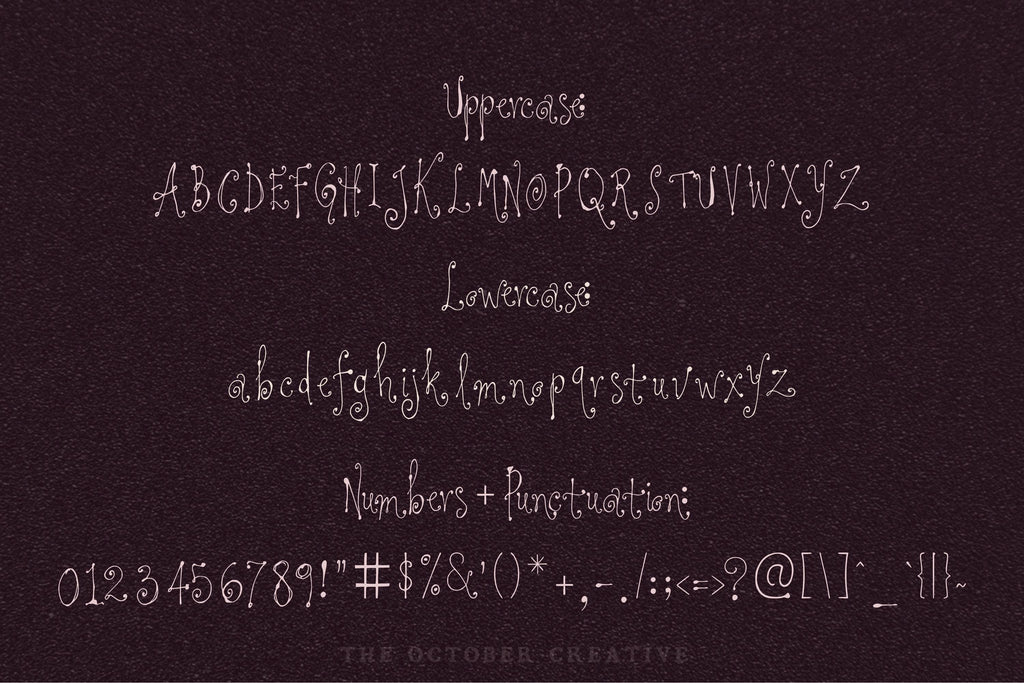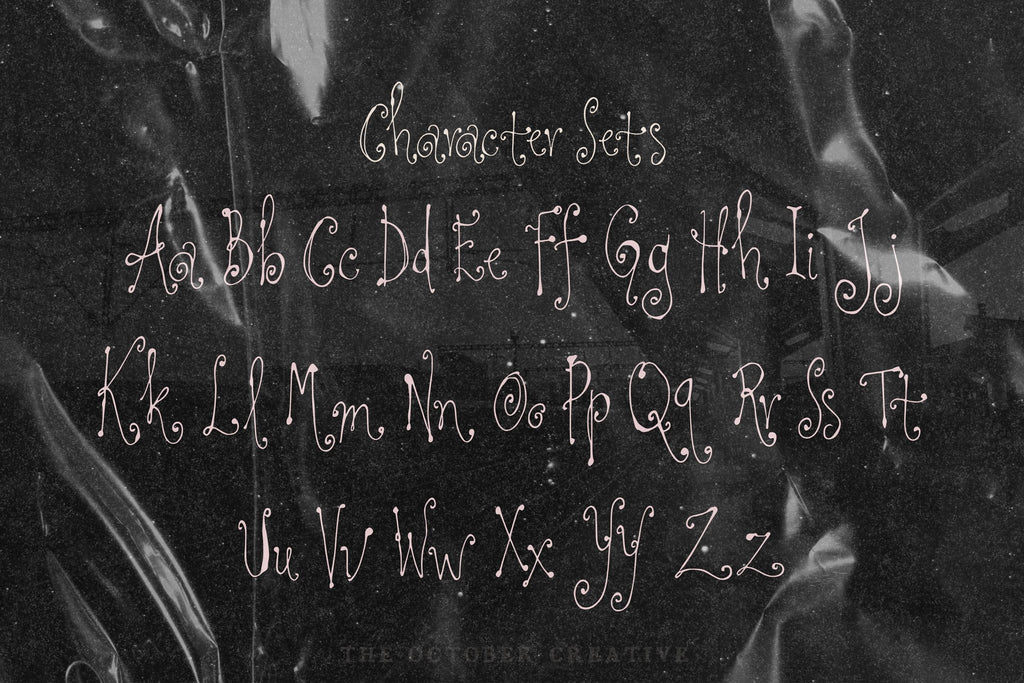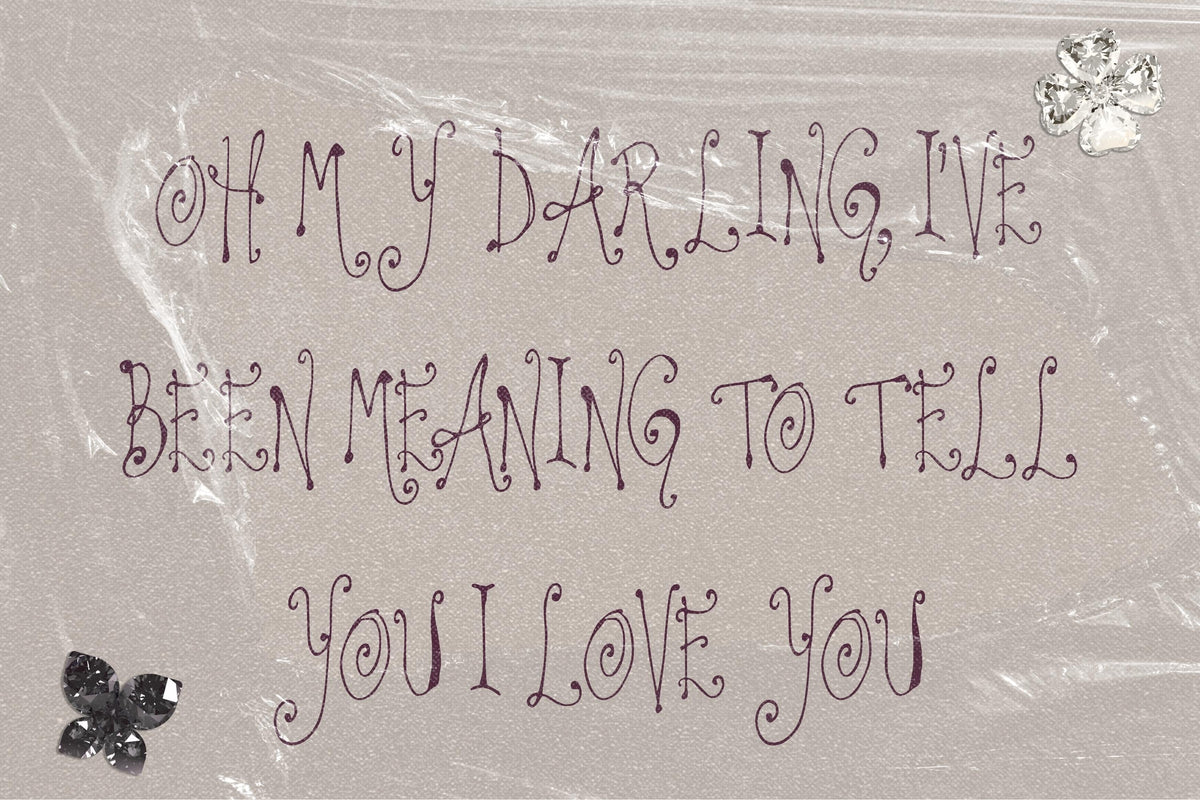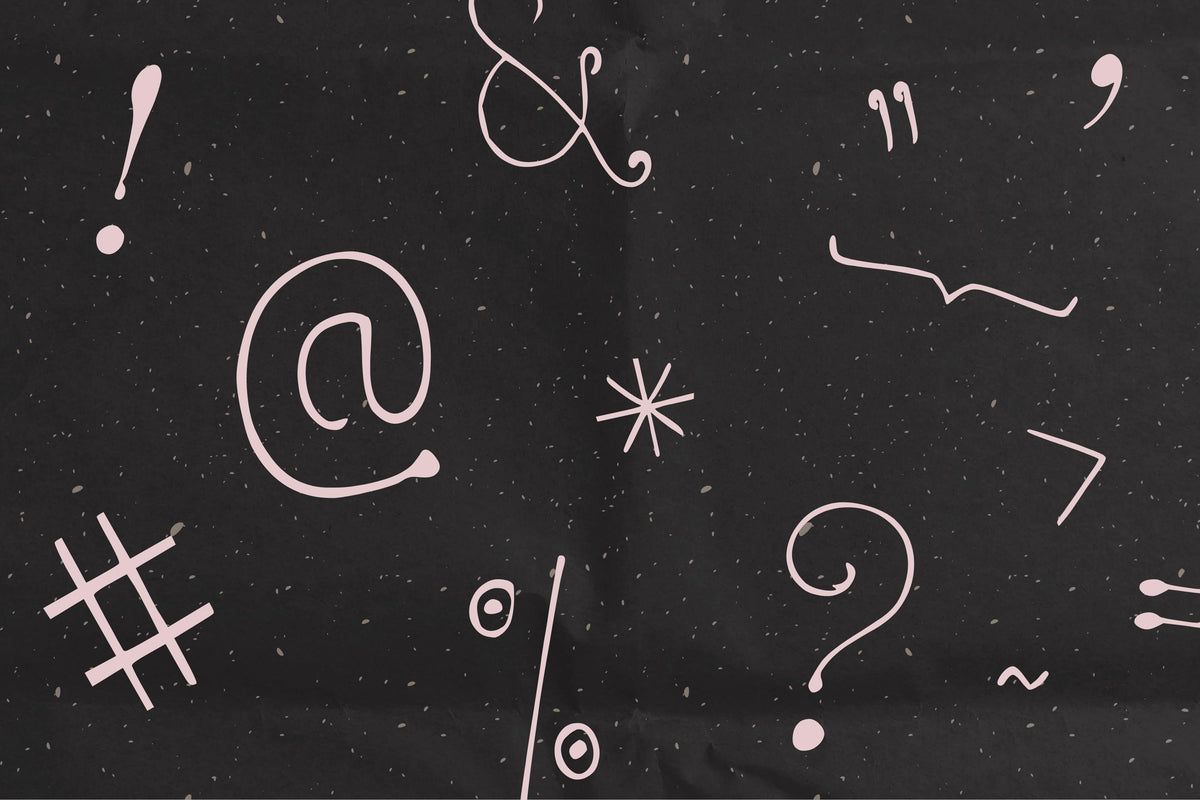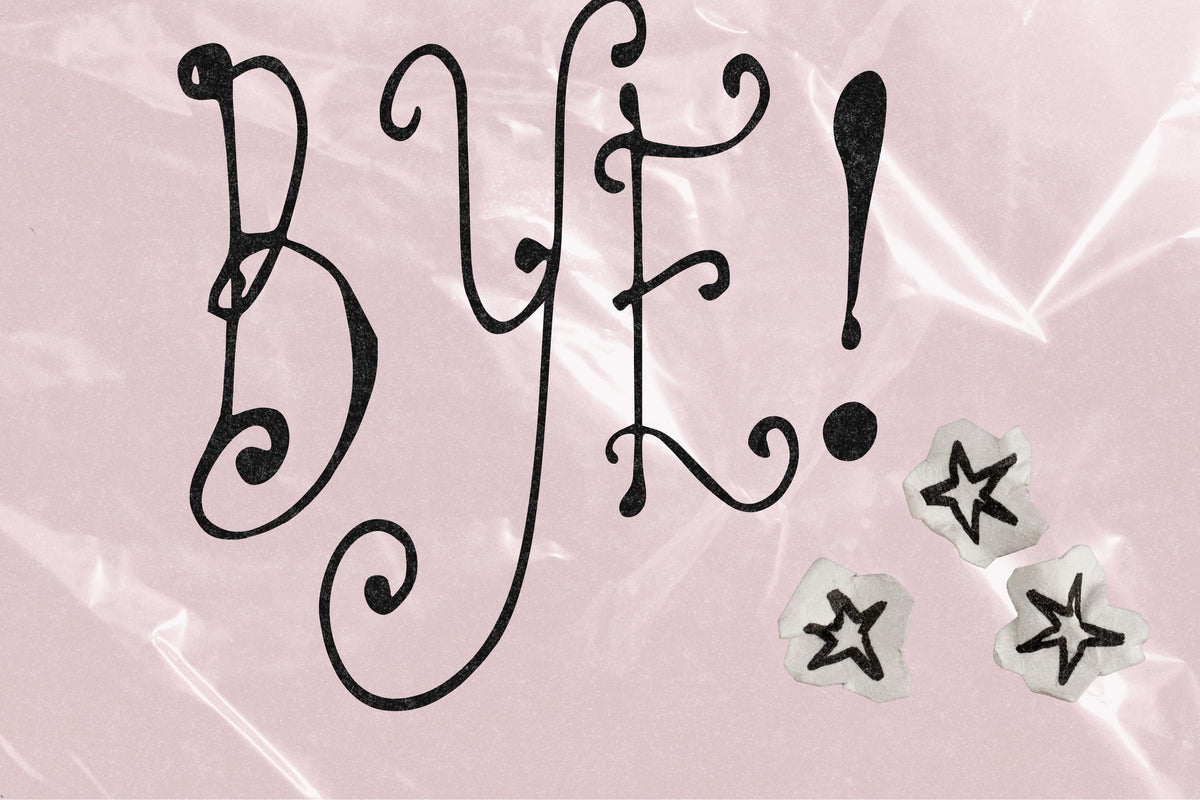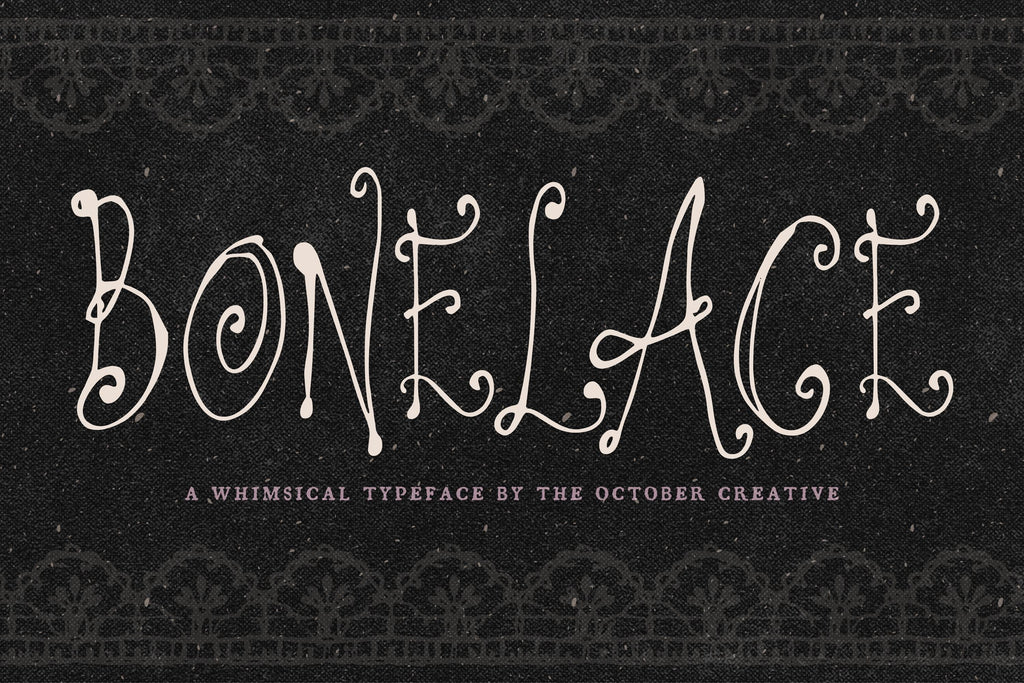
Bonelace Font
Bonelace has fine, winding curls that give your words the delicate look of lace. It's a lovely fit for gothic wedding invitations, ornate book titles, and candlelit dinner menus, especially when you give those long curls room to show off.